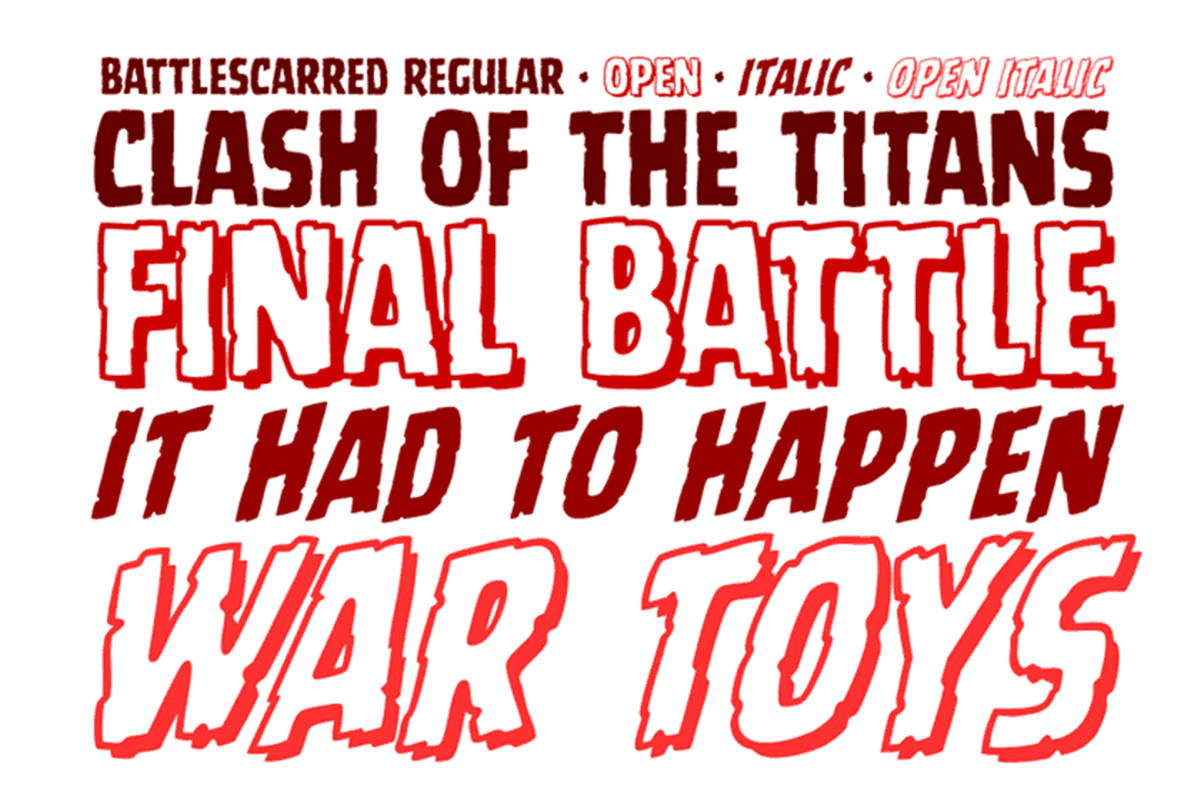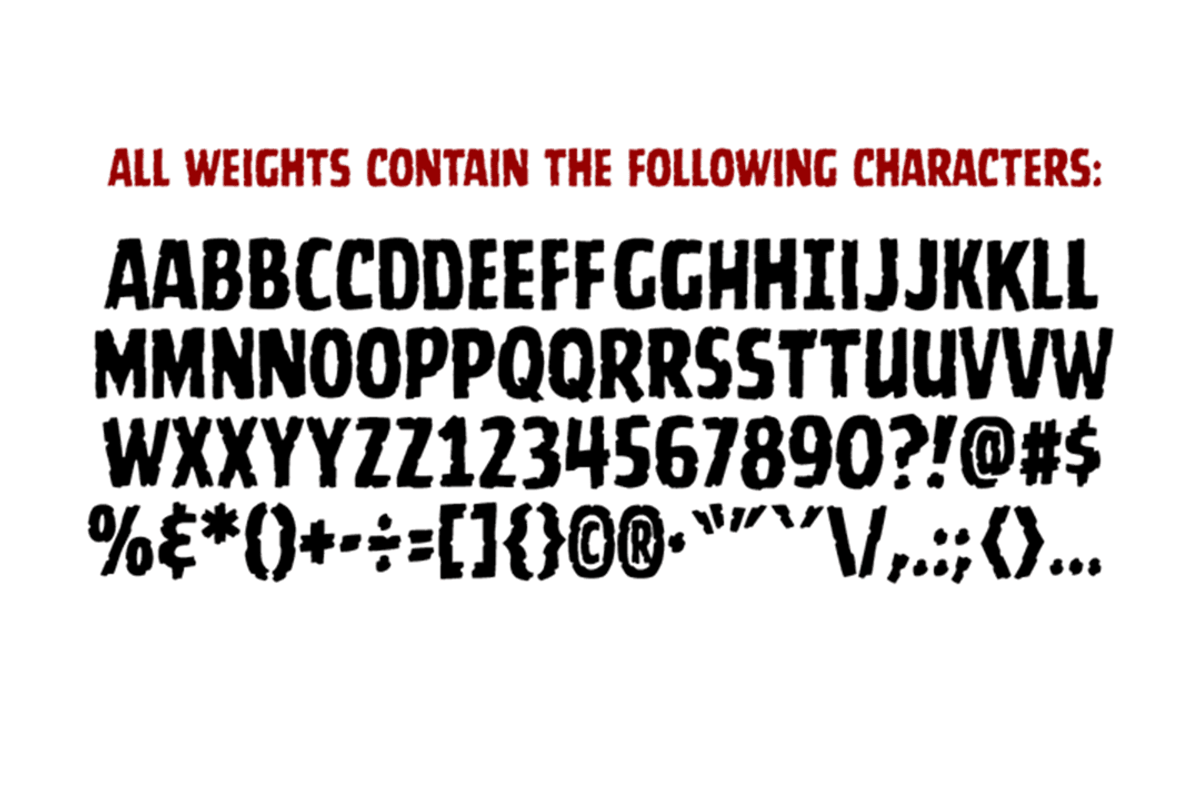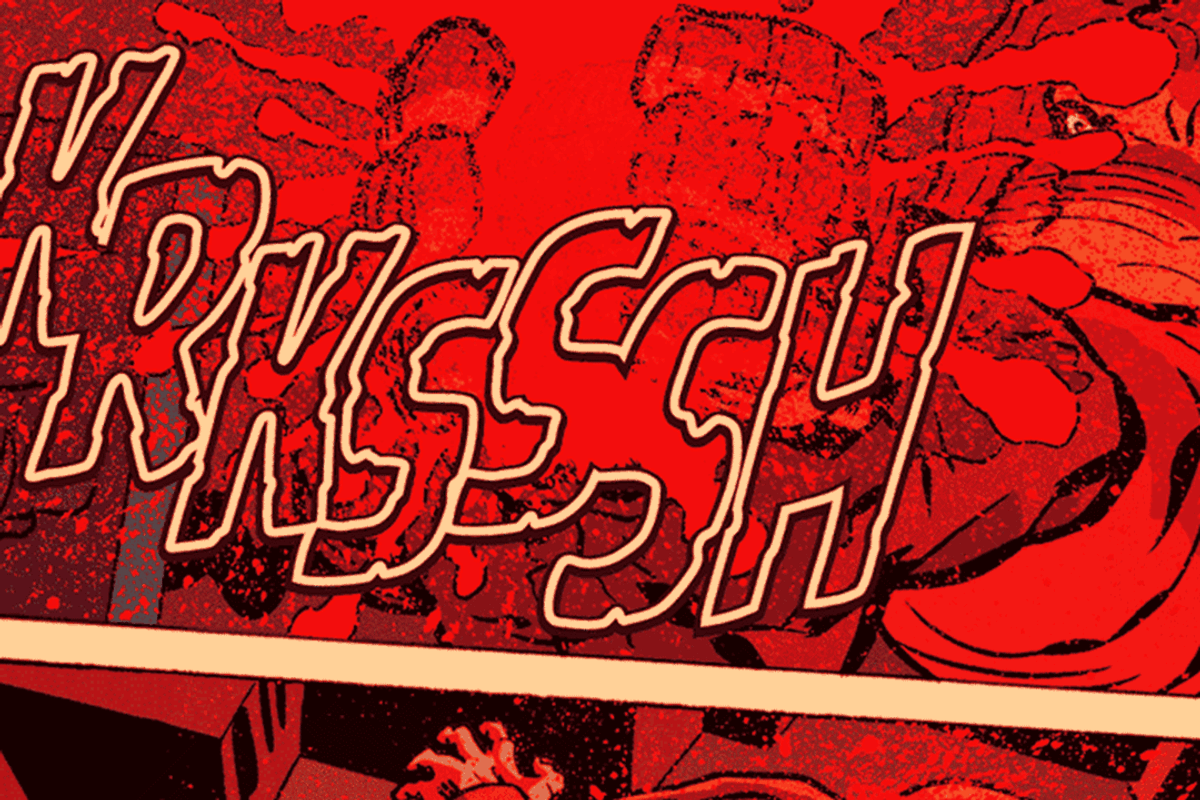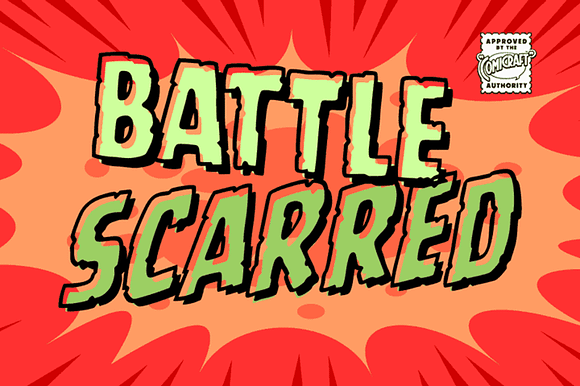
Battle Scarred - rough comic font
We know what you're thinking... This is not a new font, just an old one with a few bullet holes in its helmet, dirt on its shins and some carbon scoring on its breastplate. You're thinking this is like a variant cover by Joe Madureira or J. Scott Campbell -- handsome and rugged on the outside but weak and effete on the inside. Well, my fine, font-finagling friend, you'd be Dead Wrong! This really is an All-New, All-Different, All Star, Ultimate Collectable, from the Comicraft House of Ideas! Our Dynamic Duo -- Johnny Comicraft and Ferran "'Nuff Said" Delgado have brought you another winner from the Silver Age of comic book lettering. It's a little worse for wear, we admit it, but wouldn't you be after three rounds with the Justice League of Avengers Assembled?!?